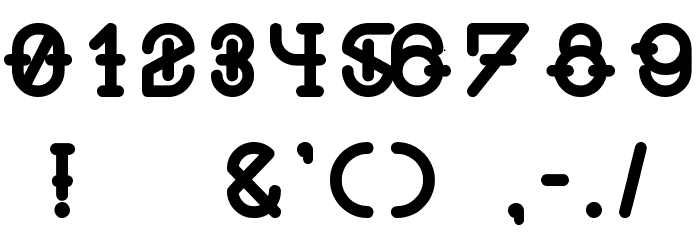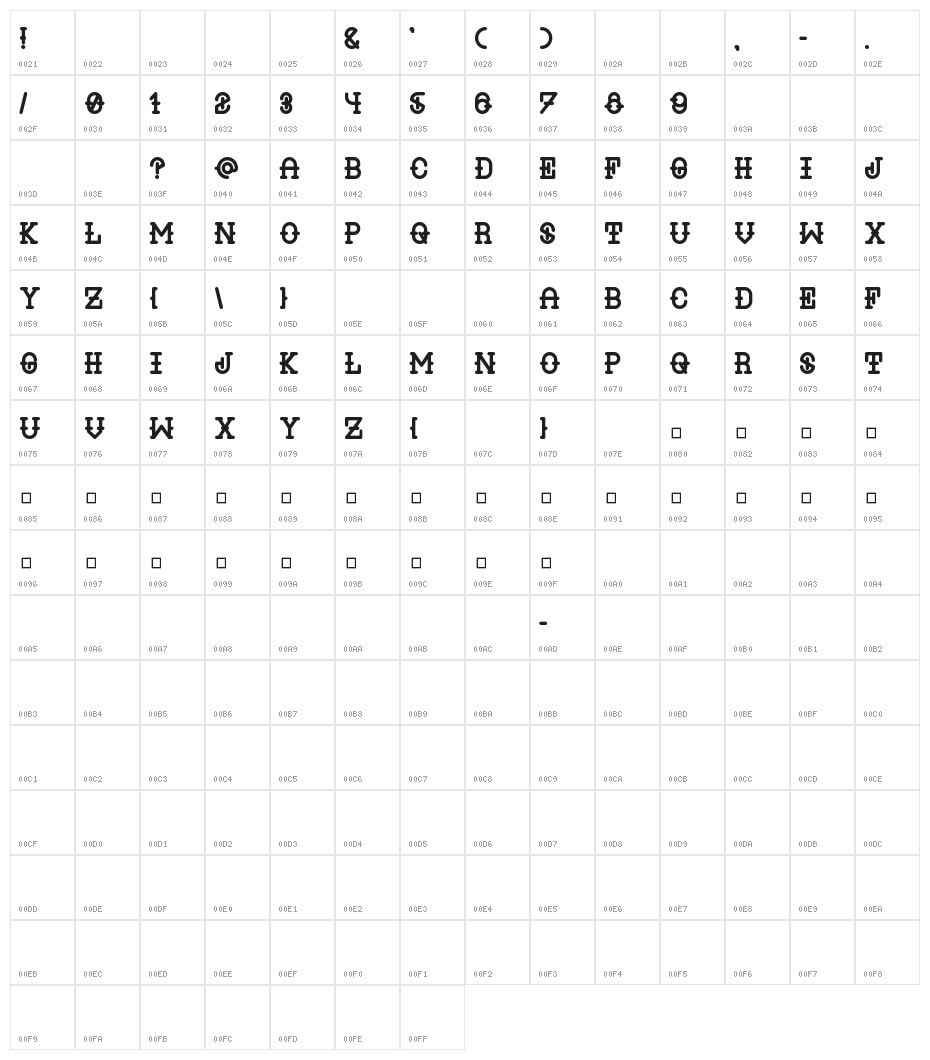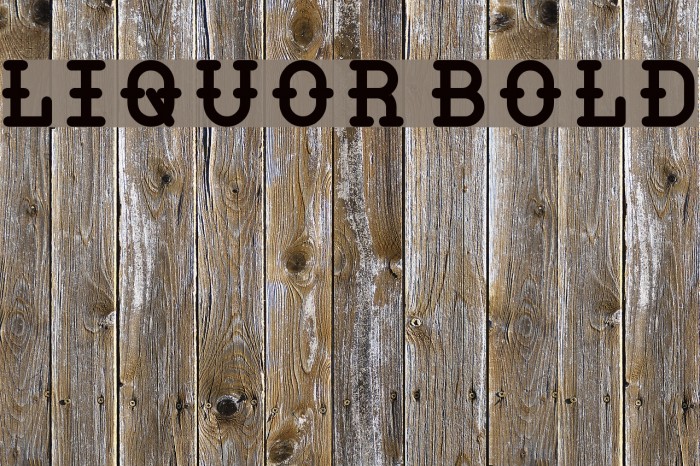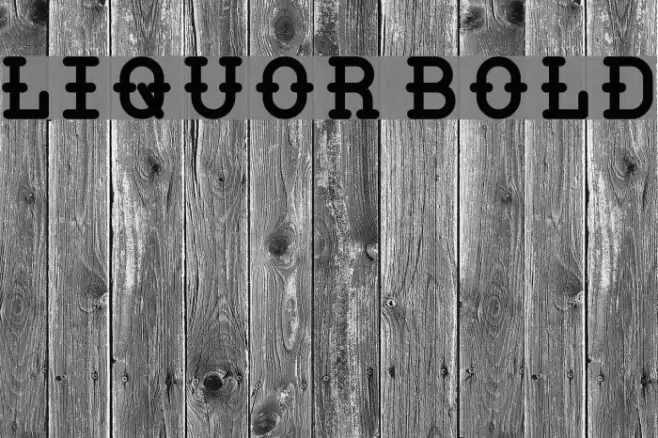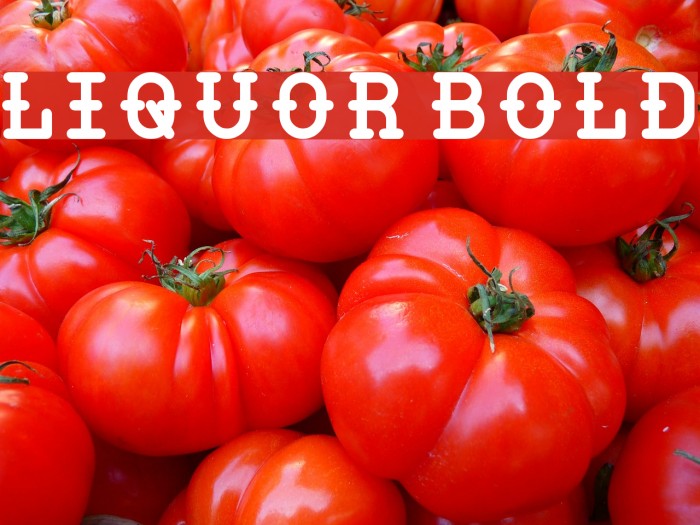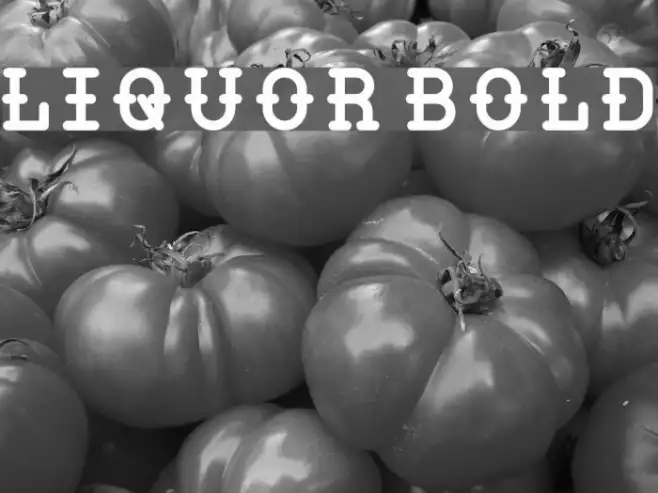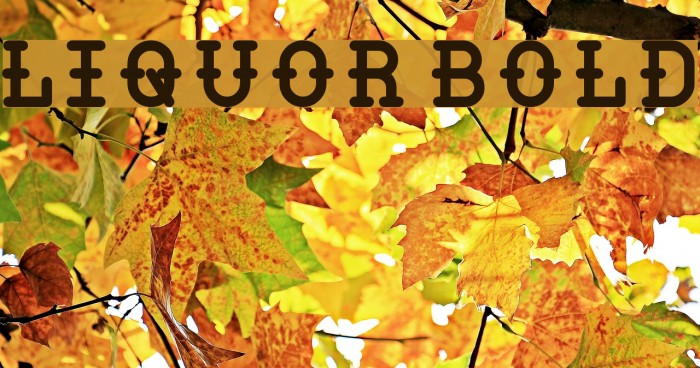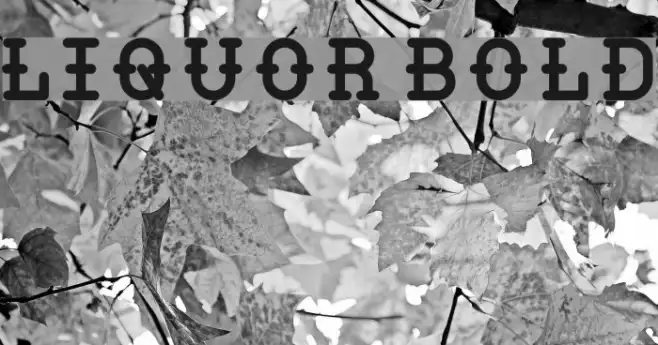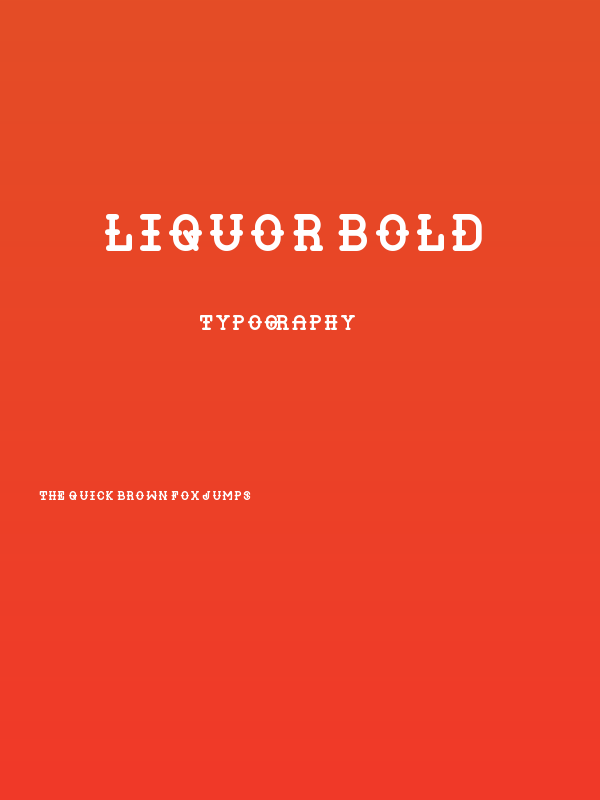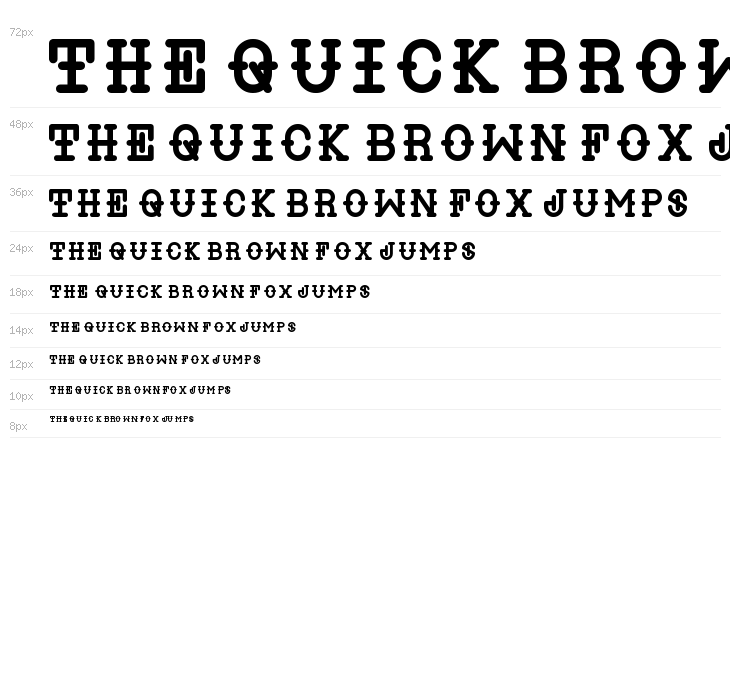
LIQUOR Bold Font
LIQUOR Bold Description
This font features a bold and striking design with a unique blend of classic and modern elements. The characters are crafted with a distinct slab serif style, characterized by thick, block-like serifs that give it a strong and authoritative presence. The letters are uniformly bold, with consistent stroke widths that enhance readability and impact. The font's geometric shapes and clean lines contribute to its modern appeal, while the serifs add a touch of vintage charm. The overall design is balanced and harmonious, making it suitable for a variety of applications where a bold statement is desired.
| Overall Style | Modern, Vintage |
| Proposed Projects | Ideal for branding, headlines, posters, and any design project that requires a bold and impactful typeface. |